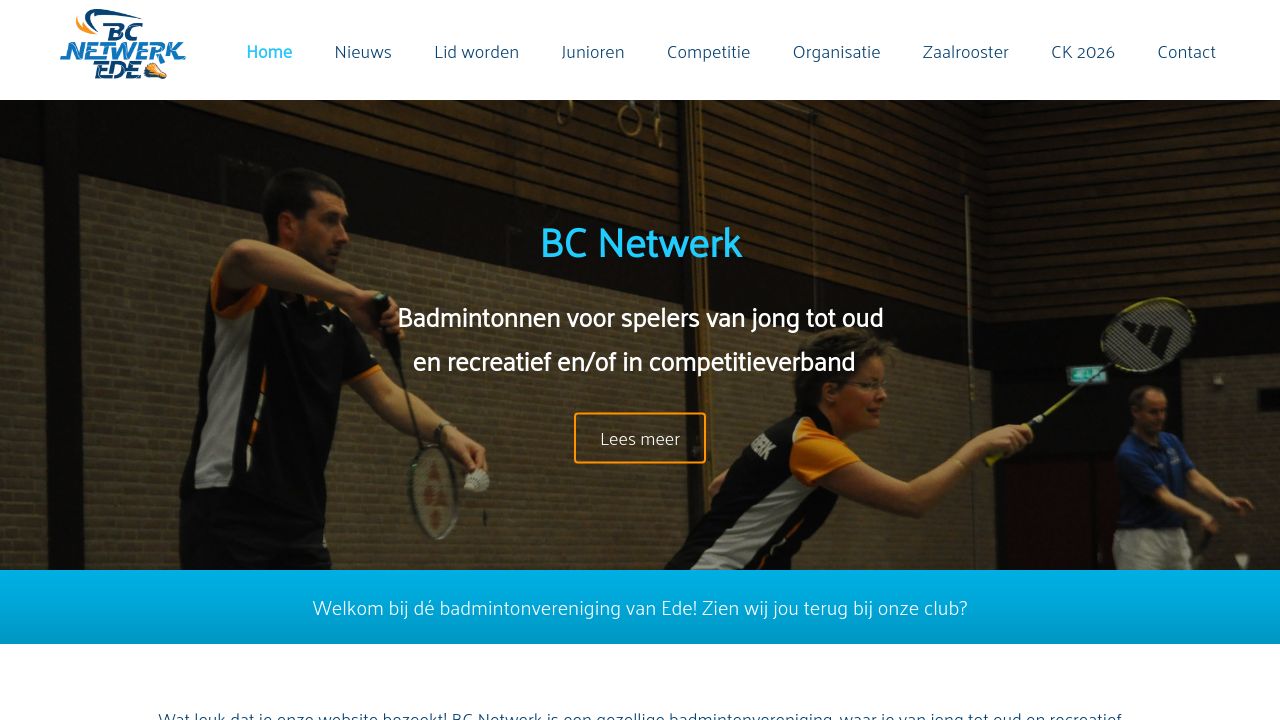
Bcnetwerkede.nl uses Palanquin as its main typeface. Arial, Monaco, Helvetica and Consolas are declared as fallbacks. 9 fonts detected, last checked Sep 28, 2026.
BC Netwerk, a vibrant badminton club located in Ede, utilizes a distinctive combination of fonts to reflect its welcoming community. The primary font, Arial, offers a familiar and accessible feel, while Monaco adds a touch of uniqueness for technical elements. The use of Palanquin provides a modern twist, appealing to a diverse audience that includes both casual players and competitive athletes. Additionally, the inclusion of dashicons enhances the site's functionality, ensuring a user-friendly experience.
Bcnetwerkede.nl uses Palanquin as its main typeface. Arial, Monaco, Helvetica and Consolas are declared as fallbacks. 9 fonts detected, last checked Sep 28, 2026.
The primary fonts used on bcnetwerkede.nl are Arial, Monaco, and Palanquin, with dashicons for custom icons.
Palanquin is a modern, versatile font that stands out for its readability and style, making it a great choice compared to more traditional fonts.
The fonts used on bcnetwerkede.nl include Arial and Monaco in weight 400, Palanquin in weight 300, and dashicons in weight 400.
Yes, the site utilizes fallback fonts such as Helvetica, Consolas, Courier, Andale Mono, and DejaVu Sans Mono to ensure compatibility.